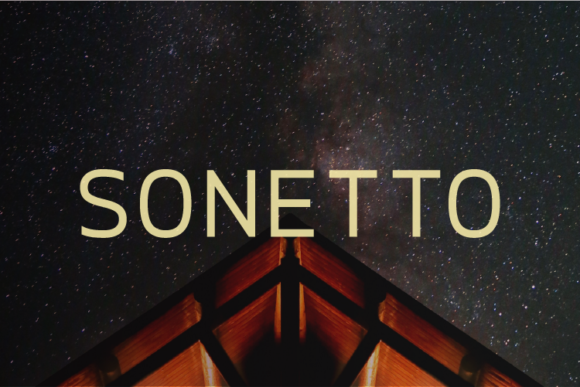
Step into the world of elegance with Sonetto Font, the ultimate sans serif font family that exudes sophistication and grace. Crafted with meticulous attention to detail by the renowned A Christie, Sonetto is a symphony of curves and lines designed to elevate your designs to new heights.
Immerse yourself in the beauty of Sonetto's perfectly balanced mix of smooth and sharp, creating a font that effortlessly blends timeless charm with modern aesthetics. Each character is meticulously crafted to ensure readability and visual appeal, making it the perfect choice for a wide range of design projects.
Whether you're crafting elegant logos that demand attention or creating stunning websites that captivate audiences, Sonetto Font is your trusted companion. Its versatility shines through, adapting seamlessly to various design styles and genres. From classic and traditional to contemporary and edgy, Sonetto effortlessly enhances your designs with a touch of refinement.
Experience the transformative power of Sonetto Font and elevate your designs beyond the ordinary. Allow your creativity to flourish as you explore the endless possibilities this font family offers. Unleash your imagination and craft masterpieces that leave an indelible mark.